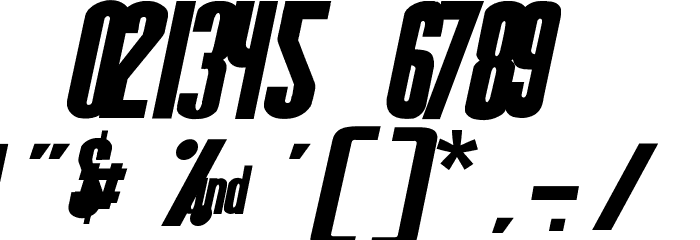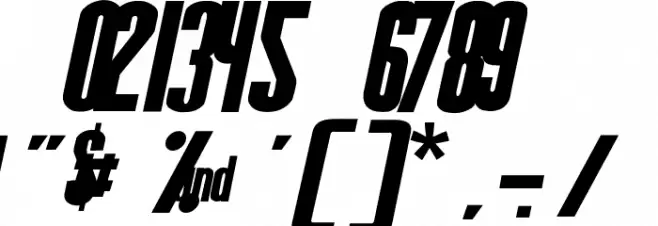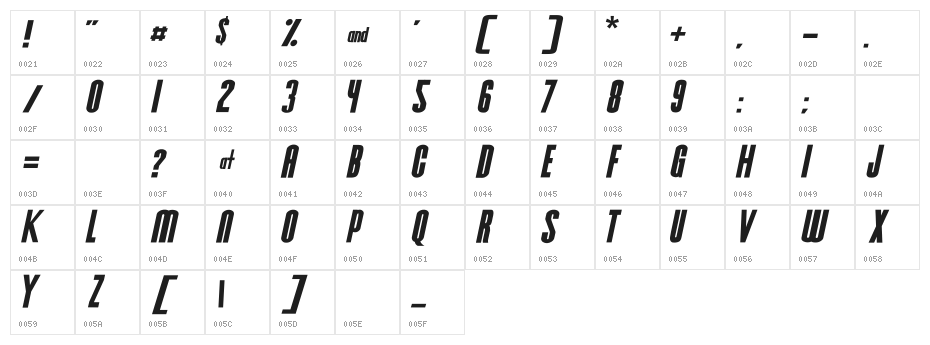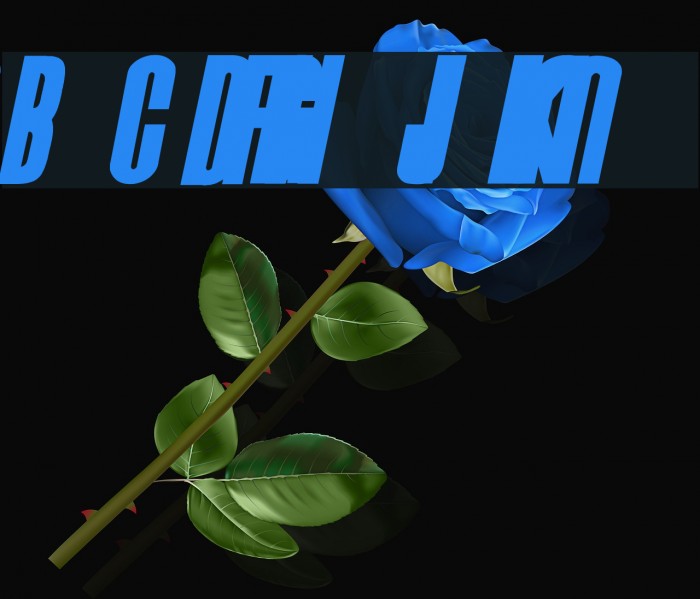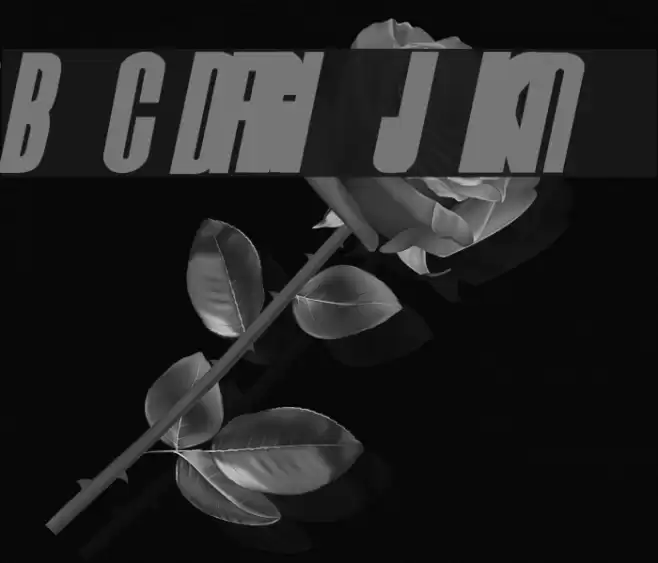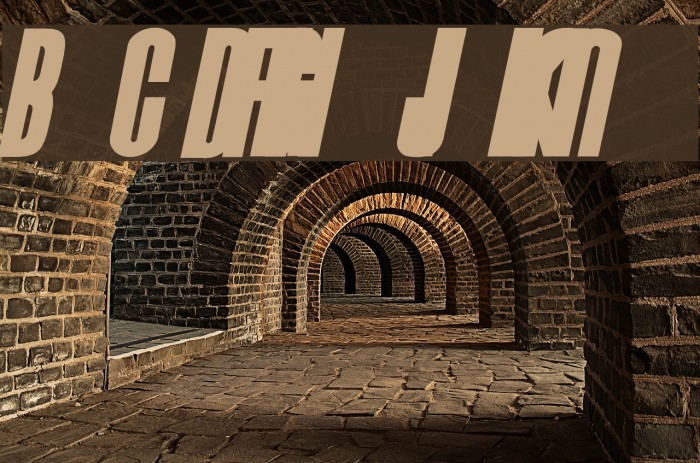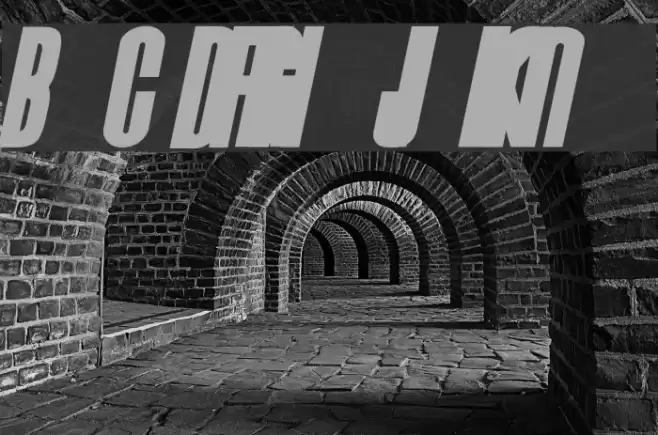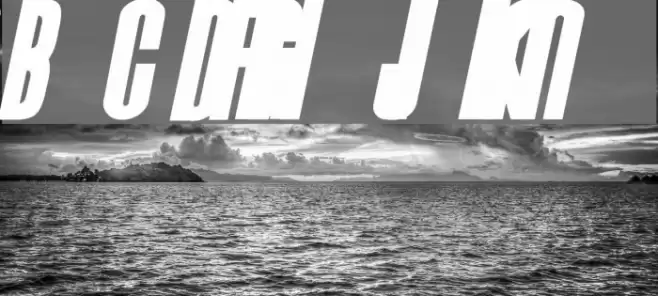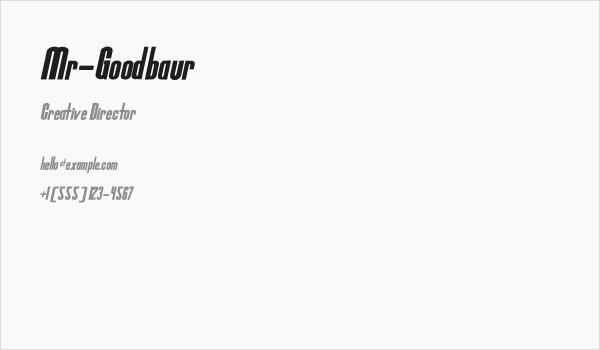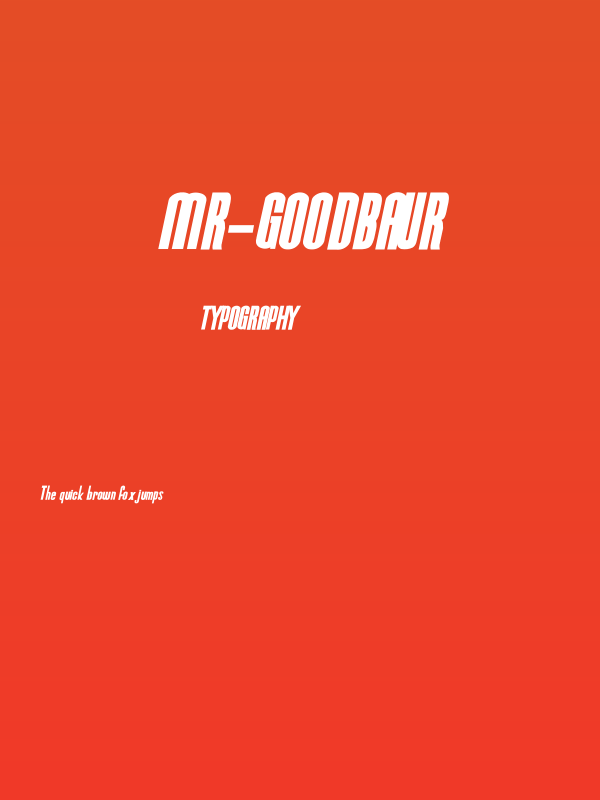
Mr-Goodbaur Font
Mr-Goodbaur Description
This font features a bold and dynamic style with a strong presence. The characters are heavily slanted, giving a sense of motion and urgency. The uppercase letters are particularly striking, with thick strokes and a condensed form that enhances their impact. The lowercase letters maintain the same boldness, with some characters having unique, elongated tails that add a touch of flair. Numbers and special characters follow the same bold and slanted design, ensuring consistency across all glyphs. The overall appearance is modern and eye-catching, making it suitable for attention-grabbing headlines and designs.